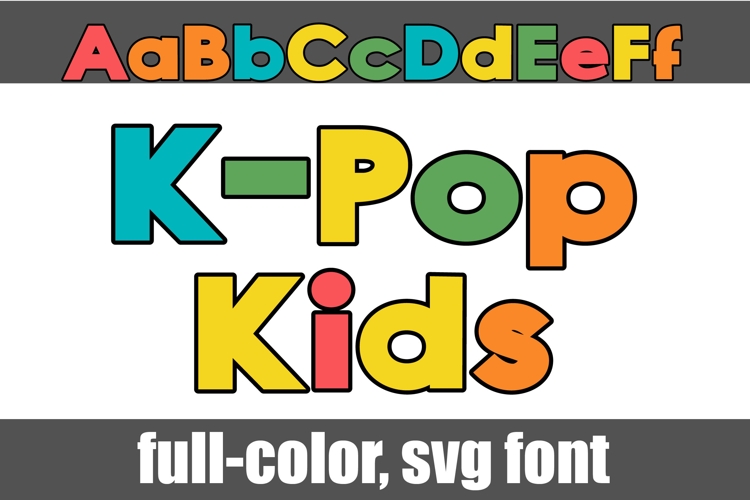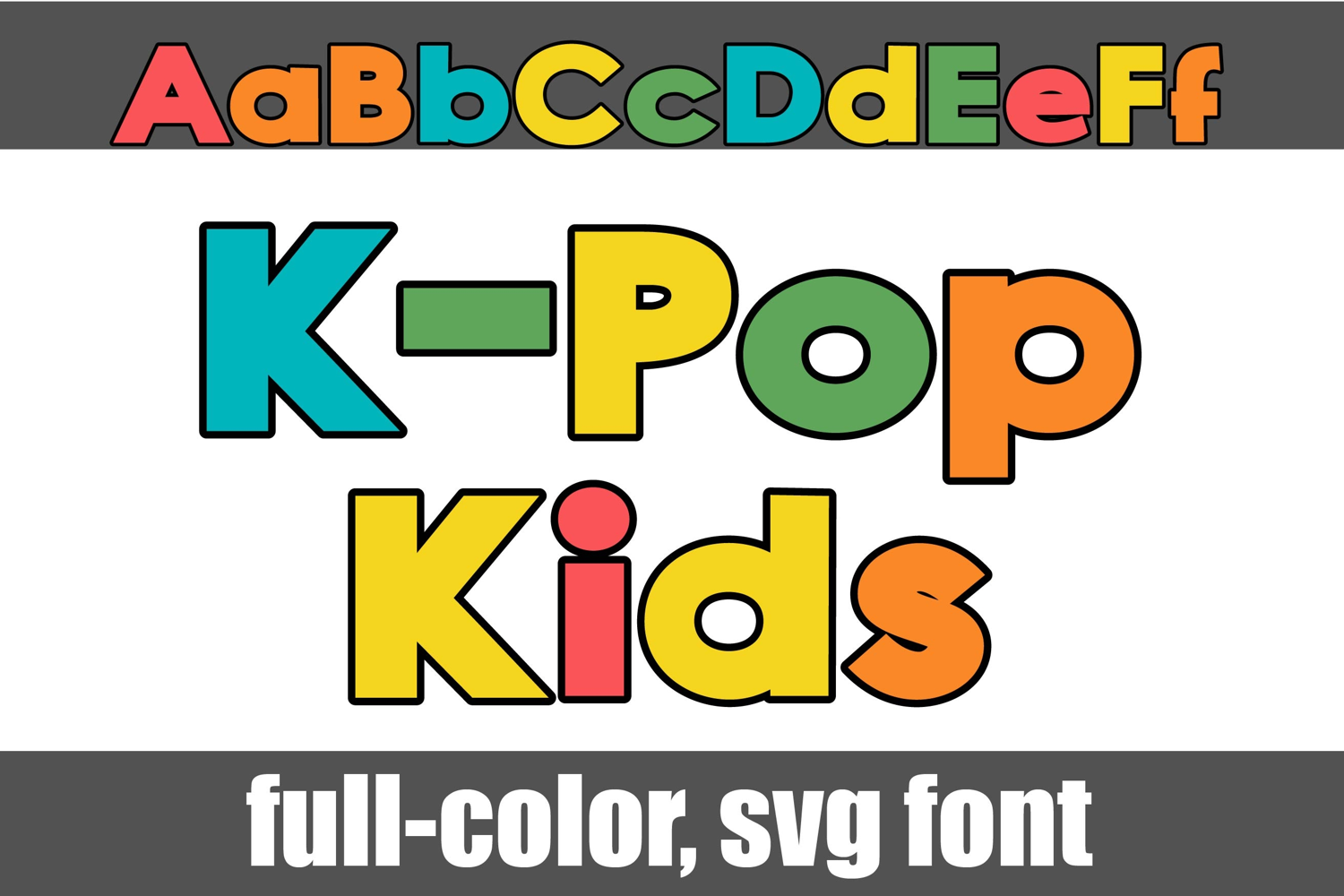
K-pop Kids Color Font
This full-color font features letters that are bright, boxy, and youthful. There is an alt case of each letter with a different color combination.